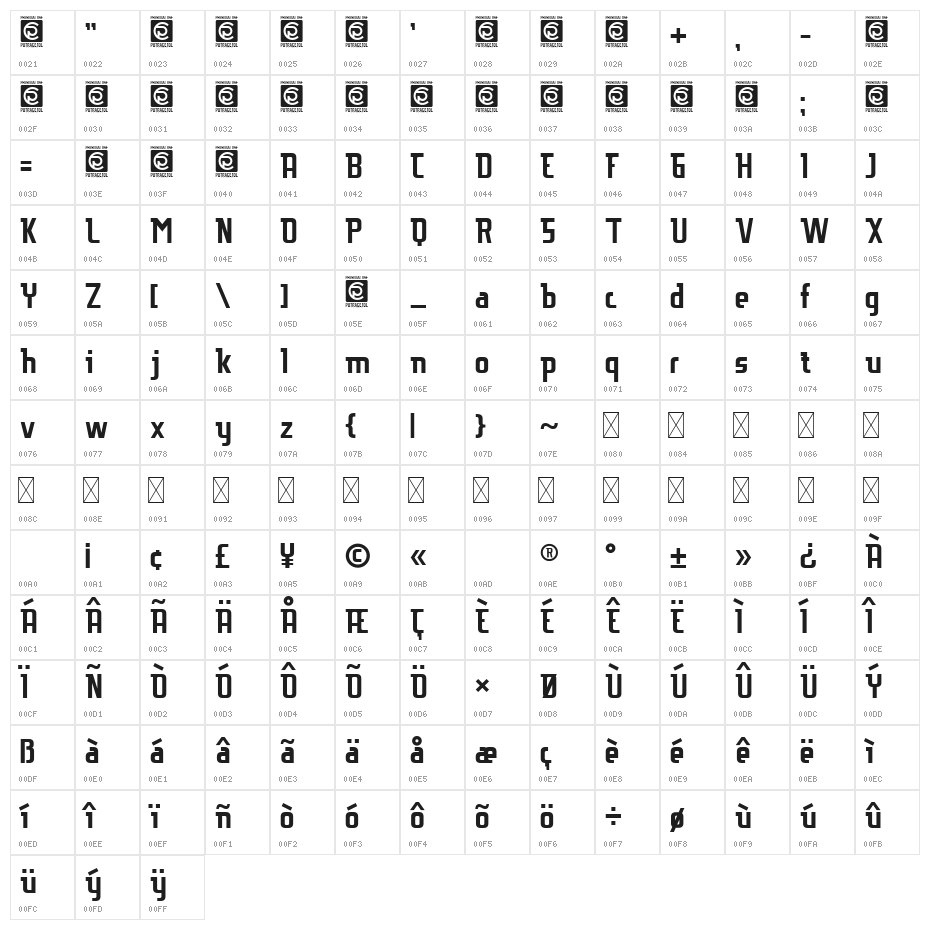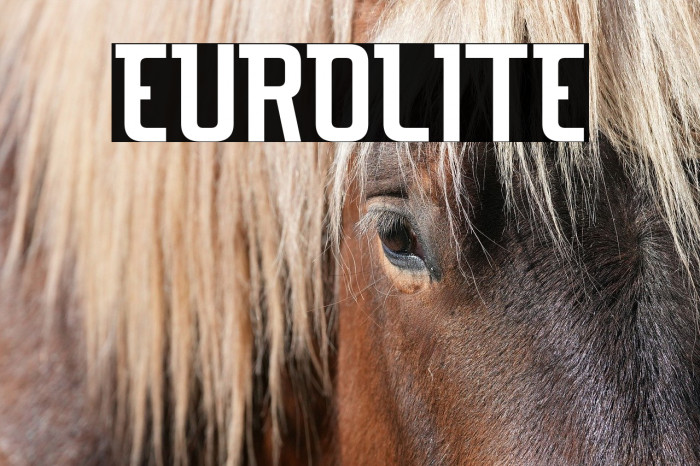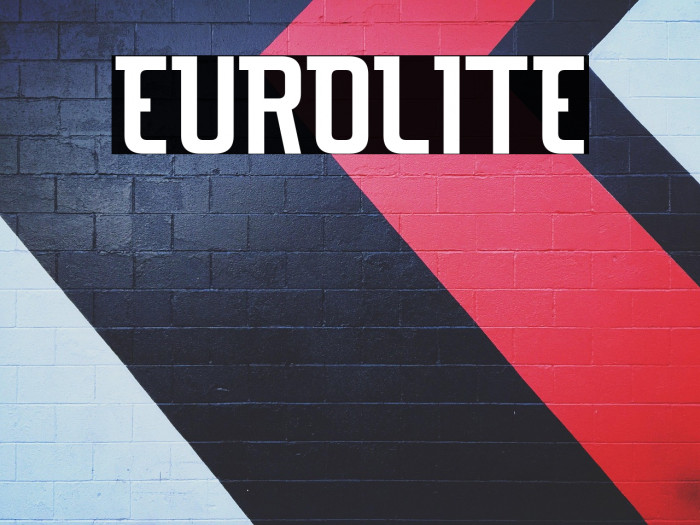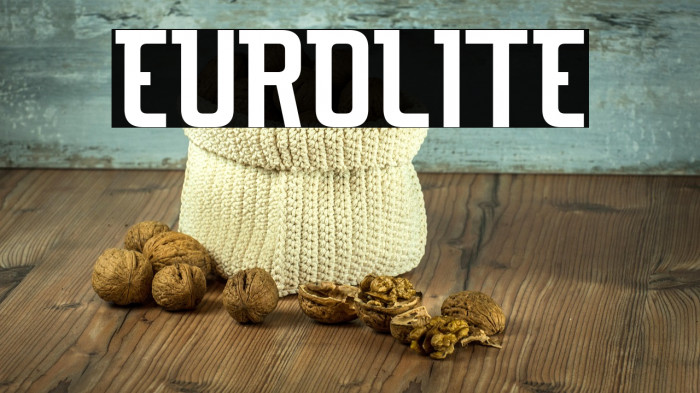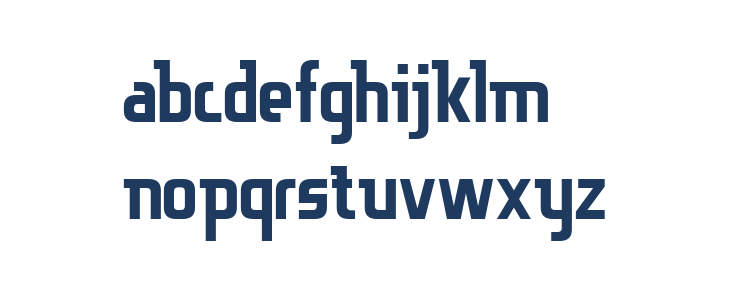
EUROLITE Font
EUROLITE Description
This font features a bold and geometric style with a modern touch. The uppercase letters are tall and slightly condensed, giving a strong and assertive appearance. The lowercase letters maintain a consistent weight and share the same geometric characteristics, ensuring readability and uniformity. The numerals are clear and distinct, matching the overall style of the alphabet. Special characters are designed to complement the font's boldness, making it suitable for impactful designs. The font's structure is clean and precise, with a focus on straight lines and sharp angles, which enhances its contemporary feel.
A bold, geometric font with a modern and assertive style from Regular fonts.
- Proposed Projects: Ideal for branding, headlines, posters, and any design needing a strong visual impact.